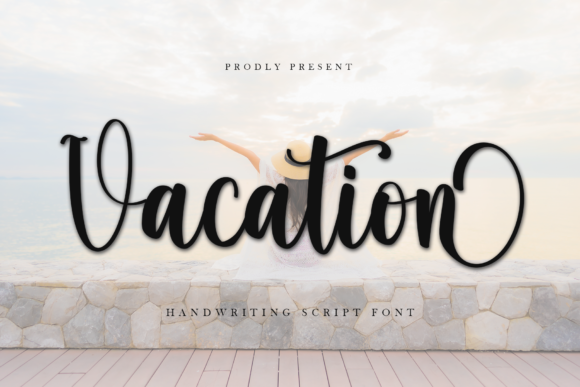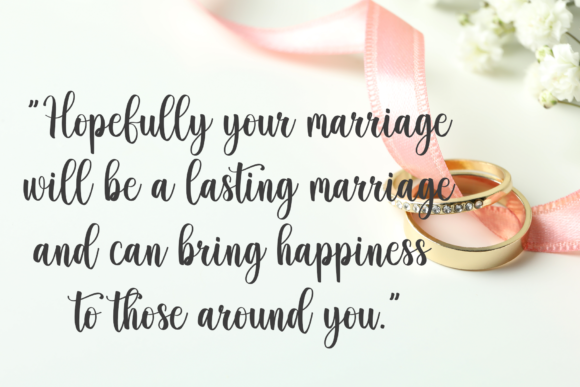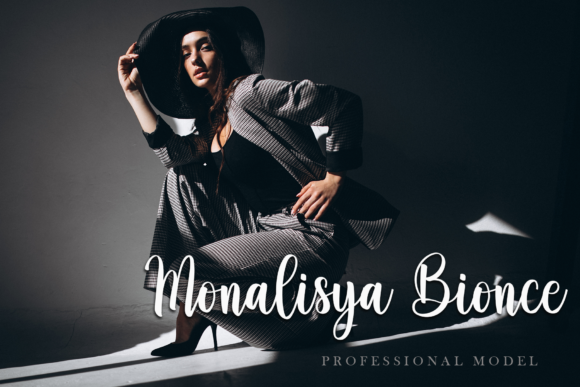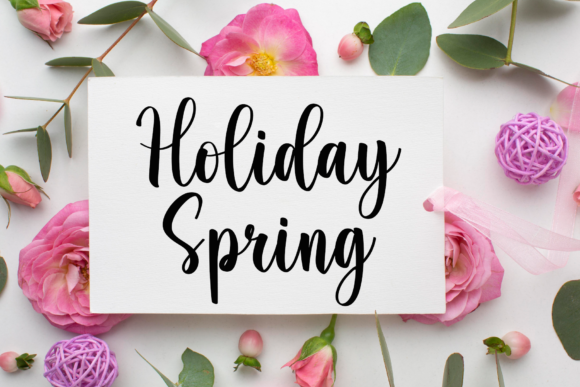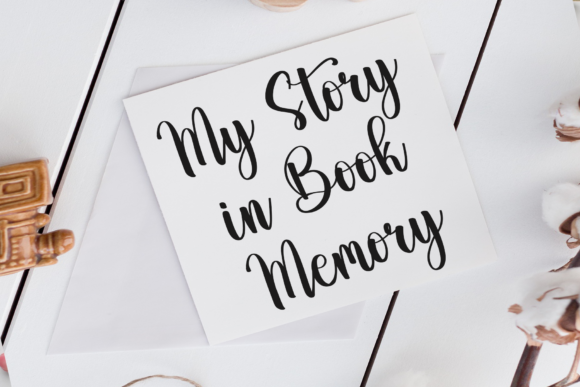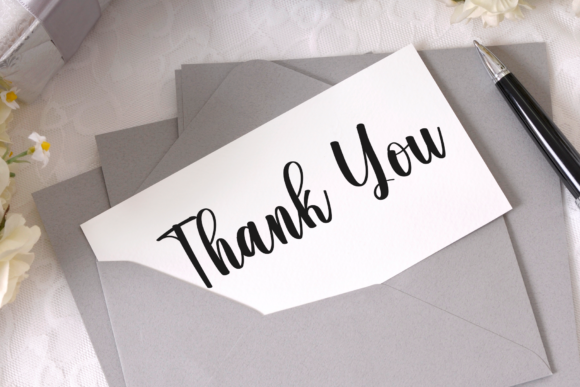
Vacation Font
About Vacation Font
Vacation, a simple yet authentic handwritten font, stands out as an excellent choice for a variety of creative projects. Whether you’re crafting logos, designing greeting cards, establishing brand identities on T-shirts, or curating interesting quotes, Vacation proves to be a versatile font that invites creativity and authenticity.
The simplicity of Vacation contributes to its authentic charm, making it approachable and adaptable to various design contexts. Its handwritten quality adds a personal touch, creating a connection between your message and your audience. This font becomes a canvas for your creative ideas, allowing you to experiment fearlessly.
Imagine Vacation gracing a logo, where each letter contributes to a unique and authentic brand identity. The simplicity of the font ensures that your logo is not only visually appealing but also conveys a sense of approachability and creativity.
In the realm of branding on T-shirts, Vacation becomes a key element in establishing a laid-back and authentic style. Its handwritten charm adds character to the designs, creating T-shirts that are not just clothing but expressions of personality.
Crafting interesting quotes with Vacation transforms words into art. Each letter, with its simplicity and authenticity, enhances the overall impact of the message. The more you play with this font, the more extraordinary and unique your quotes become.
Don’t be afraid to unleash your creativity with Vacation. The simplicity of the font is its strength, allowing you to experiment and create designs that stand out. Let this font be your companion in bringing your ideas to life, making each creation more extraordinary and true to your creative vision.